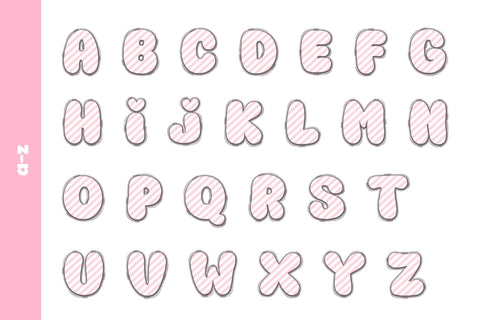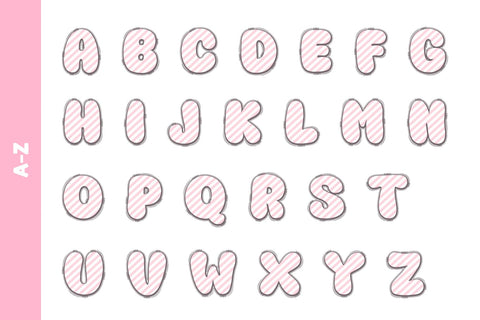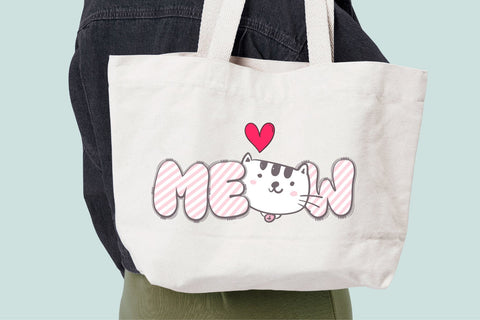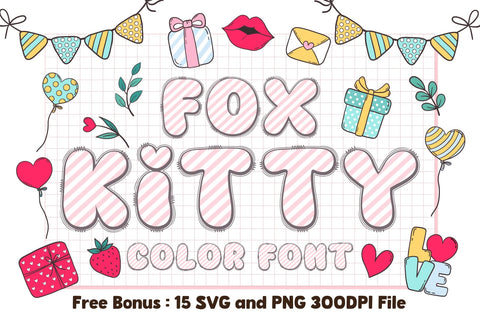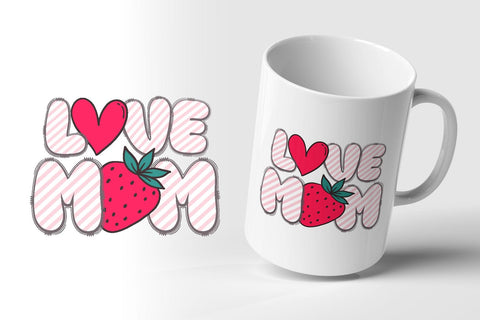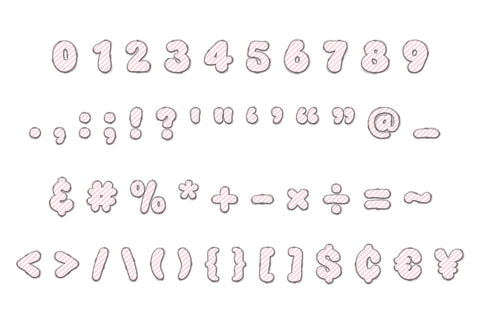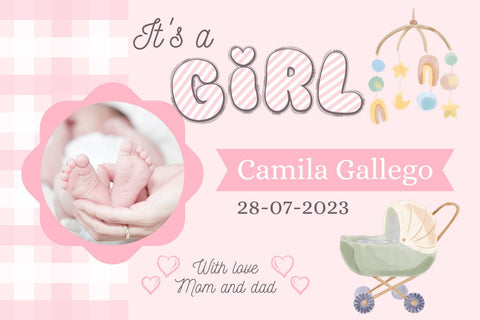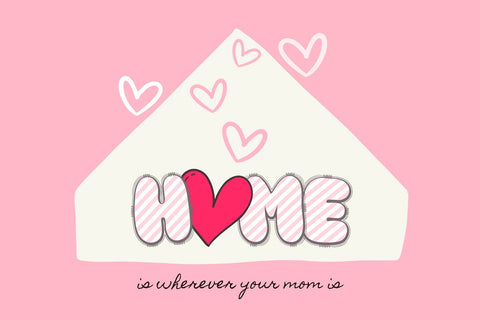
Fox Kitty Color Font
Fox Kitty is a cute and fun color font. This font is your go-to for crafting cute greeting cards that express affection and warmth. Whether you’re a designer, a social media influencer, or someone with a penchant for creative expression. Fall in love with its authentic feel and use it to create gorgeous invitations, beautiful stationary art, eye-catching social media posts, and cute greeting cards.